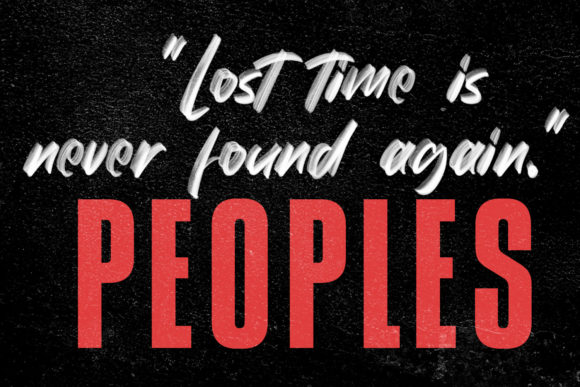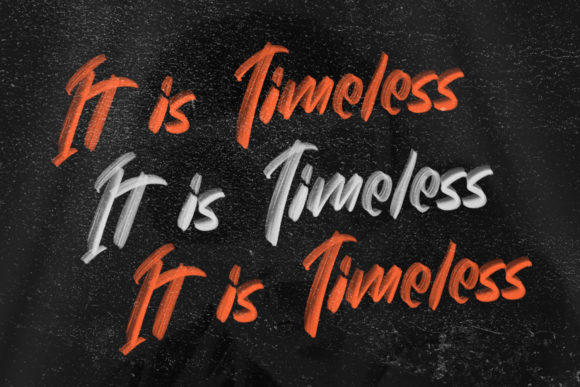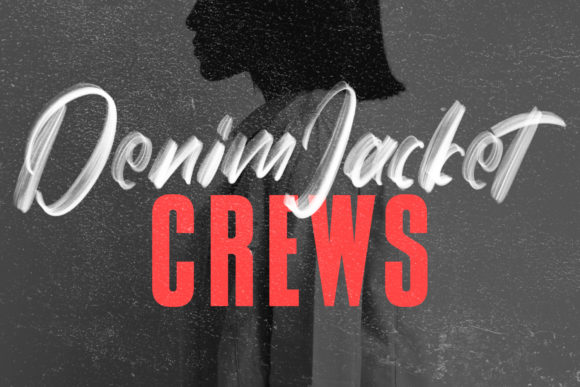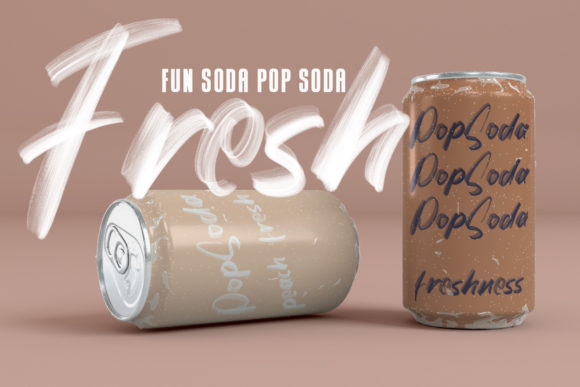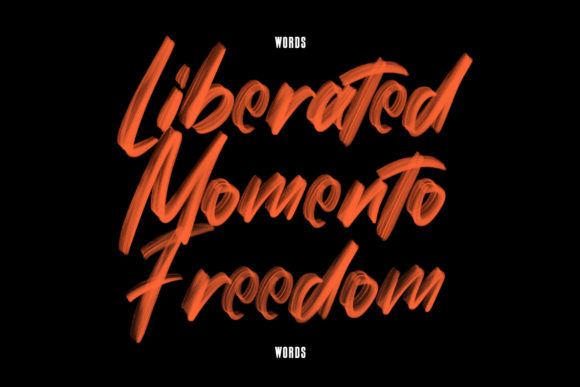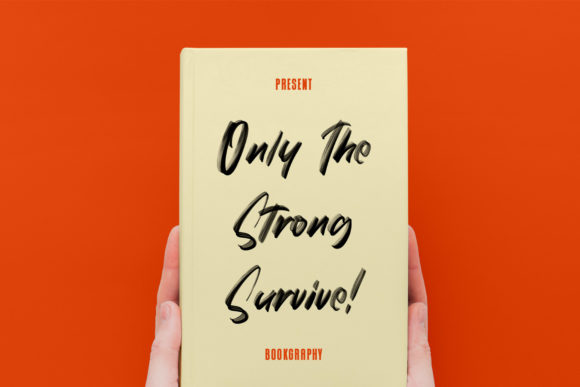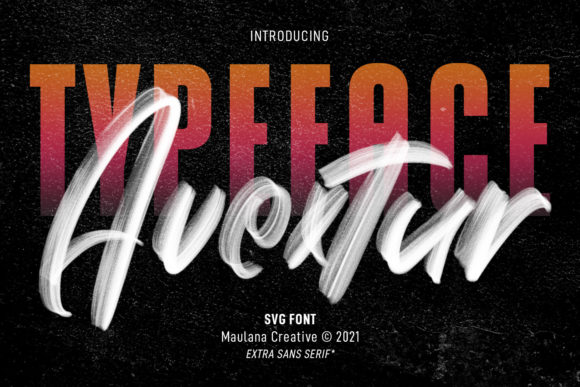
Avextur Font: The Ultimate Casual and Street-Style Display Font for Designers and Crafters
Are you a designer or crafter looking for a font that can add a touch of casual and street-style flair to your designs? Look no further than Avextur Font! This versatile and stylish display font is perfect for a wide range of design projects, from t-shirts and sportswear to logos, advertisements, clothing, and more.
What is Avextur Font?
Avextur Font is a carefully crafted display font that embodies the spirit of casual, street-style fashion. Its unique and stylish lettering makes it an excellent choice for designers and crafters who want to add a touch of personality to their designs. Whether you’re creating a logo, advertisement, or clothing design, Avextur Font is sure to make your project stand out.
Key Features of Avextur Font
- Casual and Street-Style Aesthetic: Avextur Font boasts a casual and street-style aesthetic that is perfect for designers and crafters who want to create designs that are relaxed, yet stylish.
- Versatile and Adaptable: This font is highly versatile and can be used for a wide range of design projects, from t-shirts and sportswear to logos, advertisements, and clothing.
- Unique and Stylish Lettering: Avextur Font features unique and stylish lettering that is sure to make your designs stand out from the crowd.
- Easily Readable: Despite its stylized appearance, Avextur Font is easily readable, making it perfect for designs that require a clear and concise message.
Use Cases for Avextur Font
Avextur Font is an incredibly versatile font that can be used for a wide range of design projects. Here are some use cases to get you started:
- T-Shirts and Apparel: Create stylish and eye-catching t-shirts, hoodies, and other apparel with Avextur Font.
- Sportswear and Accessories: Use Avextur Font to create bold and stylish sportswear and accessories, such as hats, bags, and shoes.
- Logos and Branding: Create a lasting impression with Avextur Font, perfect for logos, business cards, and other branding materials.
- Advertisements and Posters: Use Avextur Font to create eye-catching advertisements and posters that grab attention.
- Clothing and Fashion: Avextur Font is perfect for clothing and fashion designs, such as clothing labels, tags, and packaging.
Why Choose Avextur Font?
So why choose Avextur Font for your design projects? Here are just a few reasons:
- Unique Style: Avextur Font offers a unique and stylish aesthetic that will set your designs apart from the crowd.
- Highly Versatile: This font is highly versatile and can be used for a wide range of design projects.
- Easily Readable: Avextur Font is easily readable, making it perfect for designs that require a clear and concise message.
- Perfect for Designers and Crafters: Avextur Font is perfect for designers and crafters who want to add a touch of personality to their designs.
In conclusion, Avextur Font is an excellent choice for designers and crafters who want to add a touch of casual and street-style flair to their designs. With its unique and stylish lettering, versatility, and ease of readability, Avextur Font is perfect for a wide range of design projects. Whether you’re creating t-shirts, logos, advertisements, or clothing, Avextur Font is sure to make your project stand out. So why wait? Download Avextur Font today and start creating stunning designs that showcase your creativity and style!